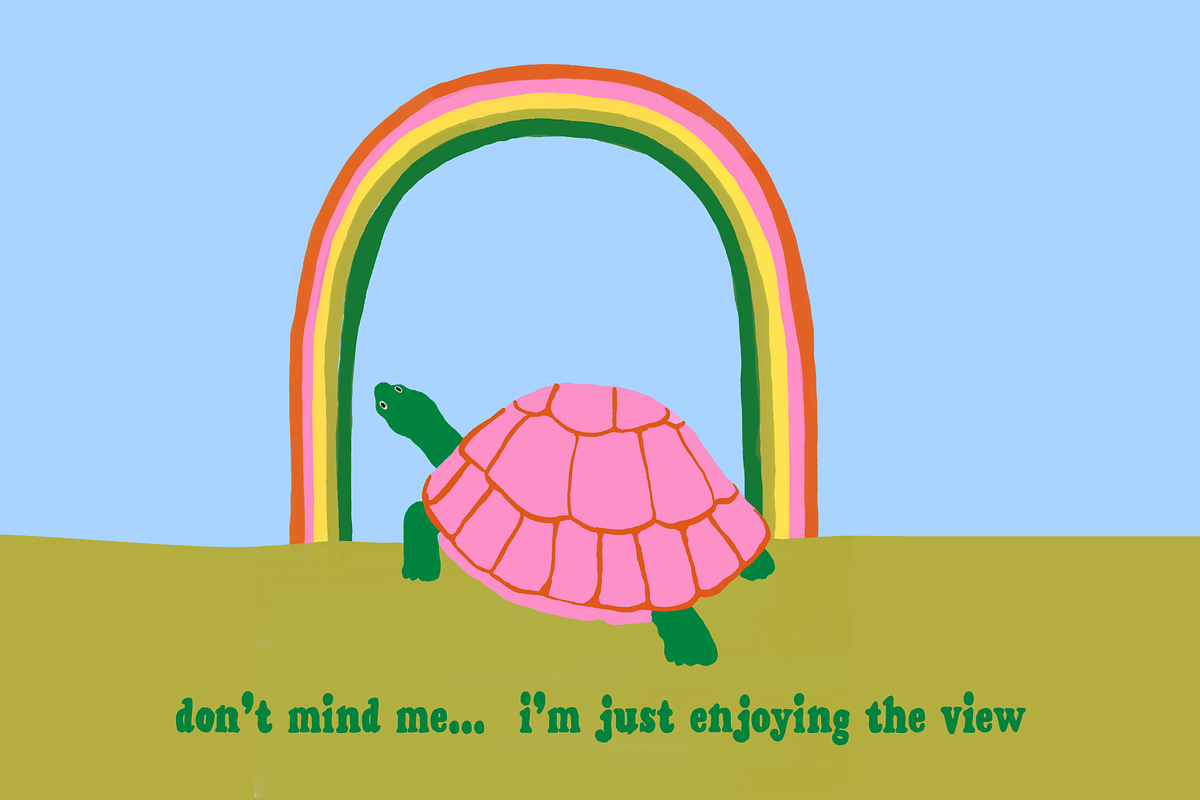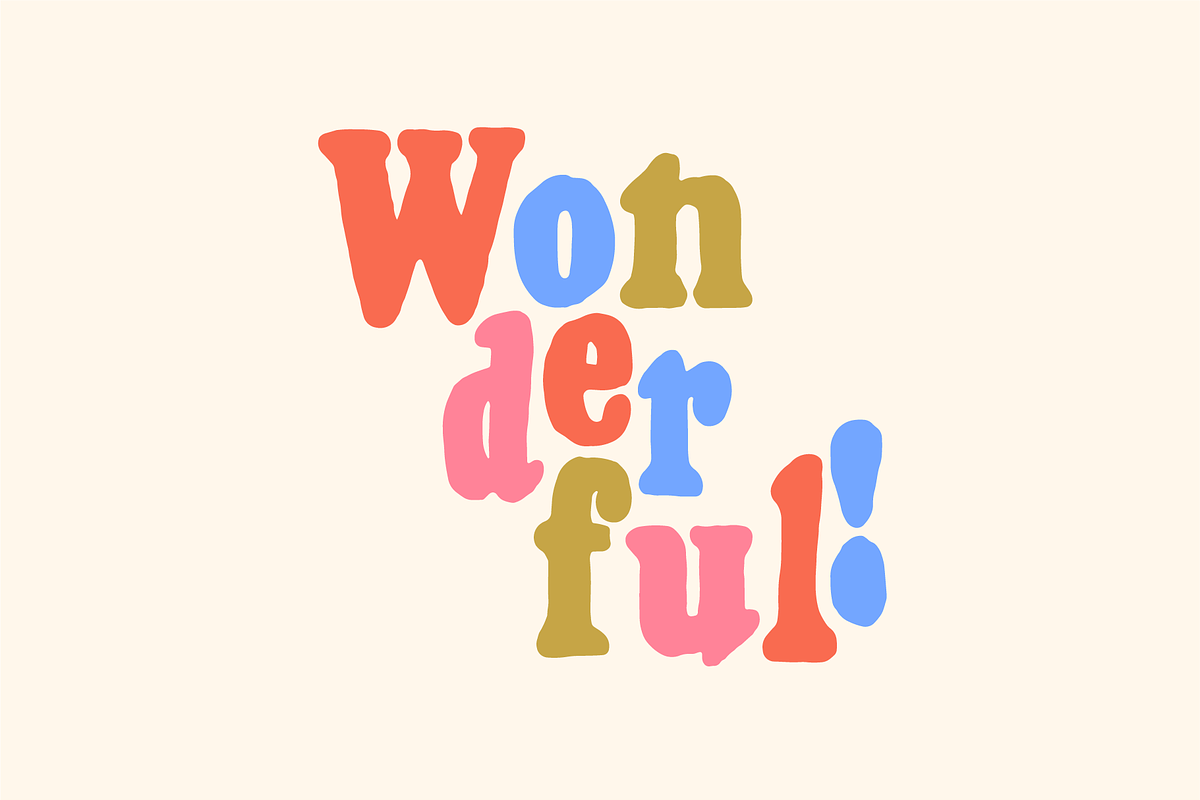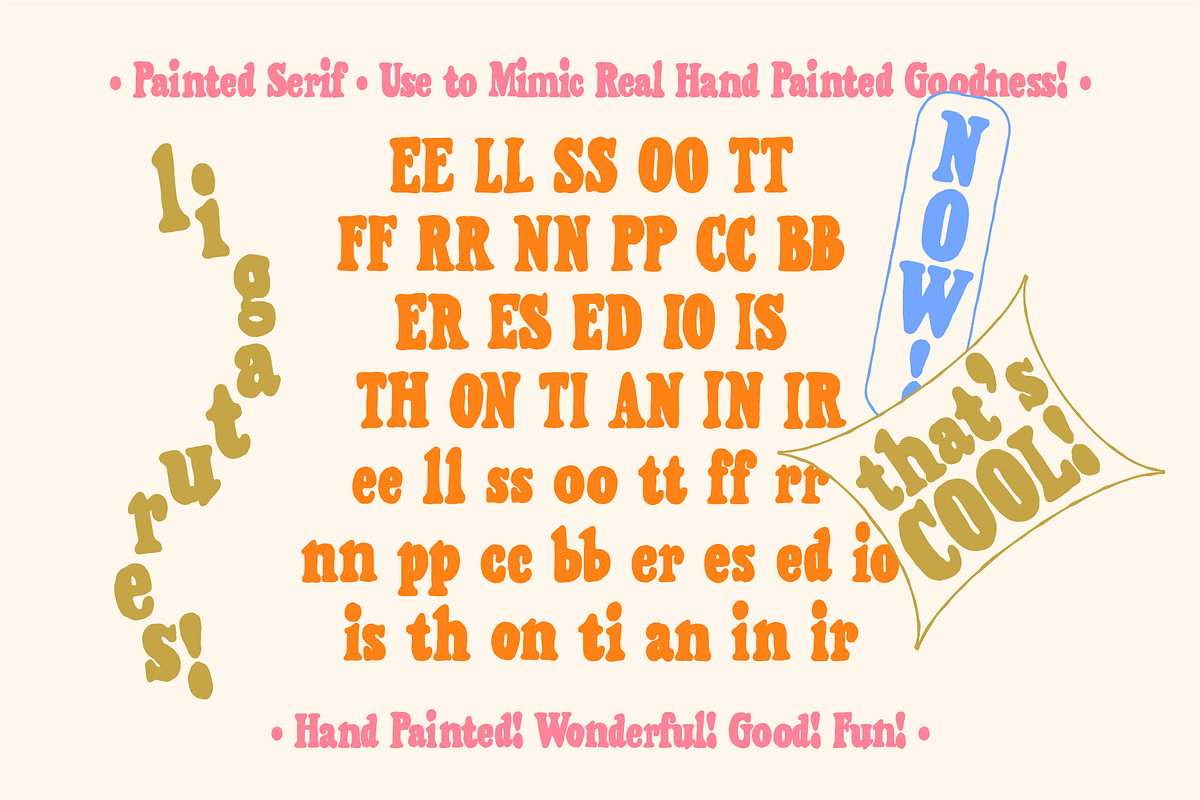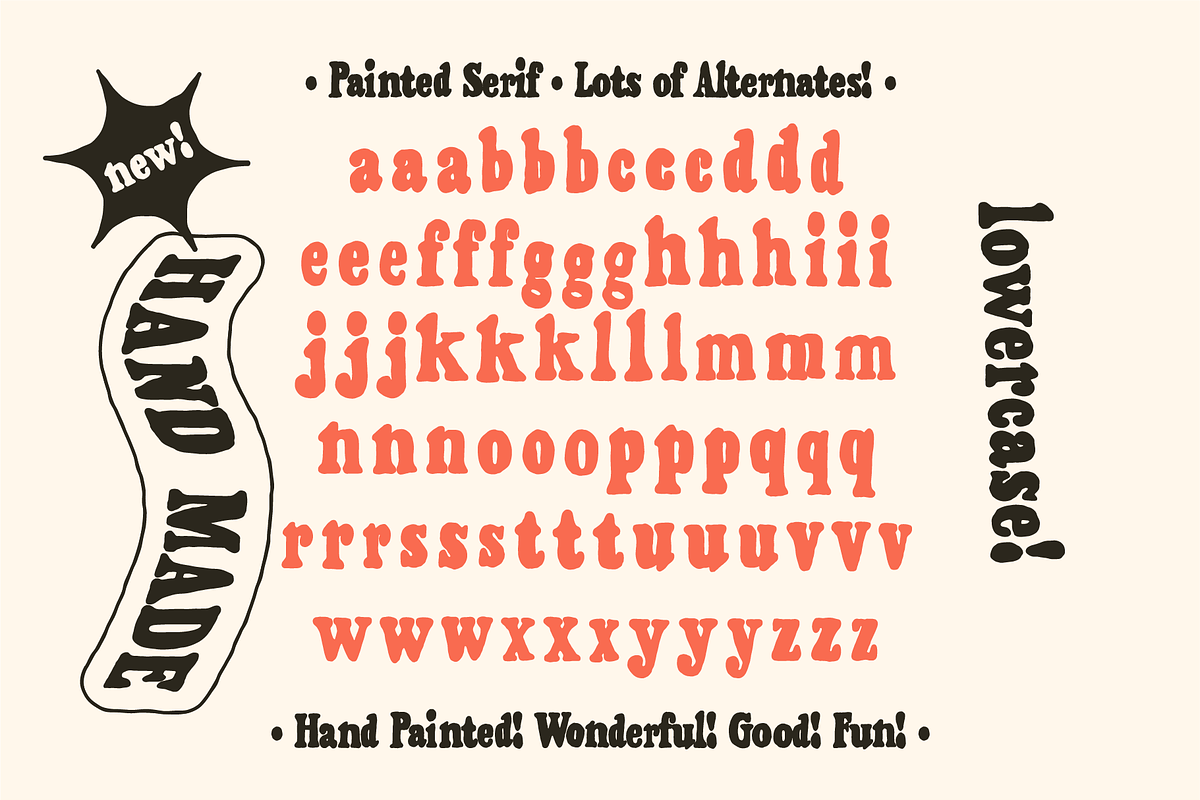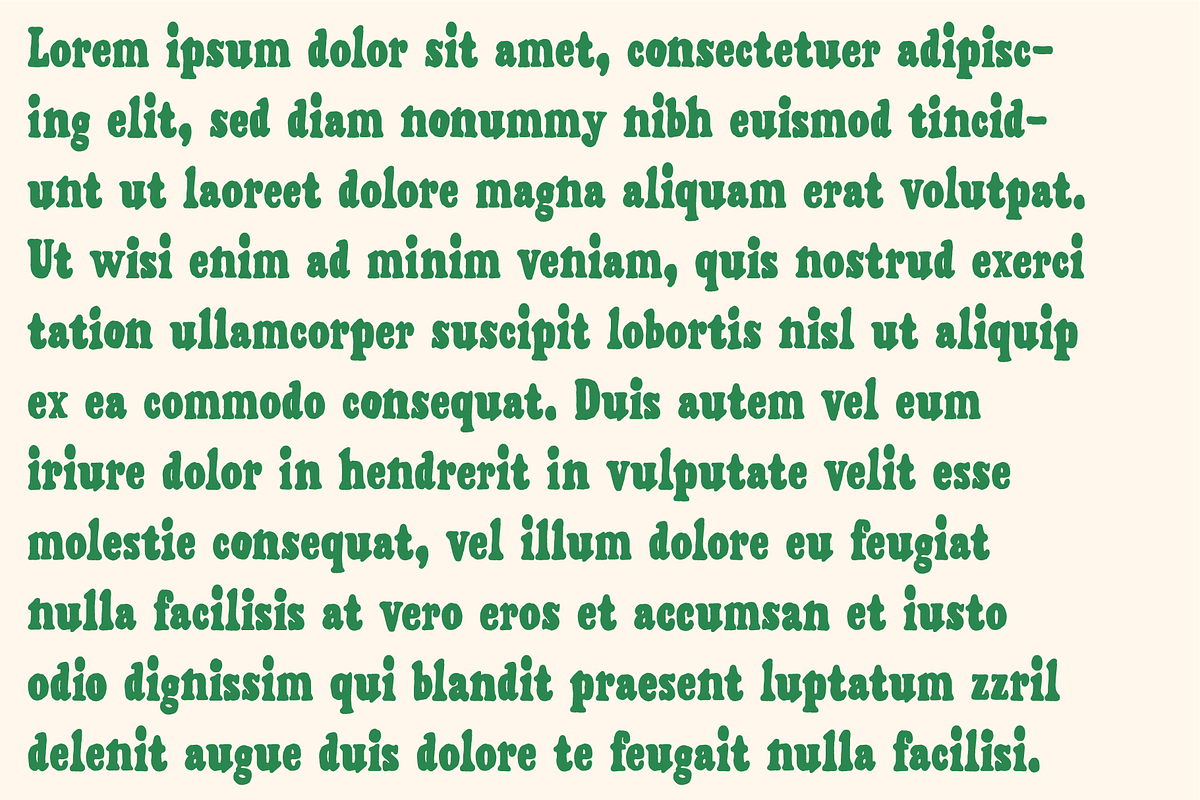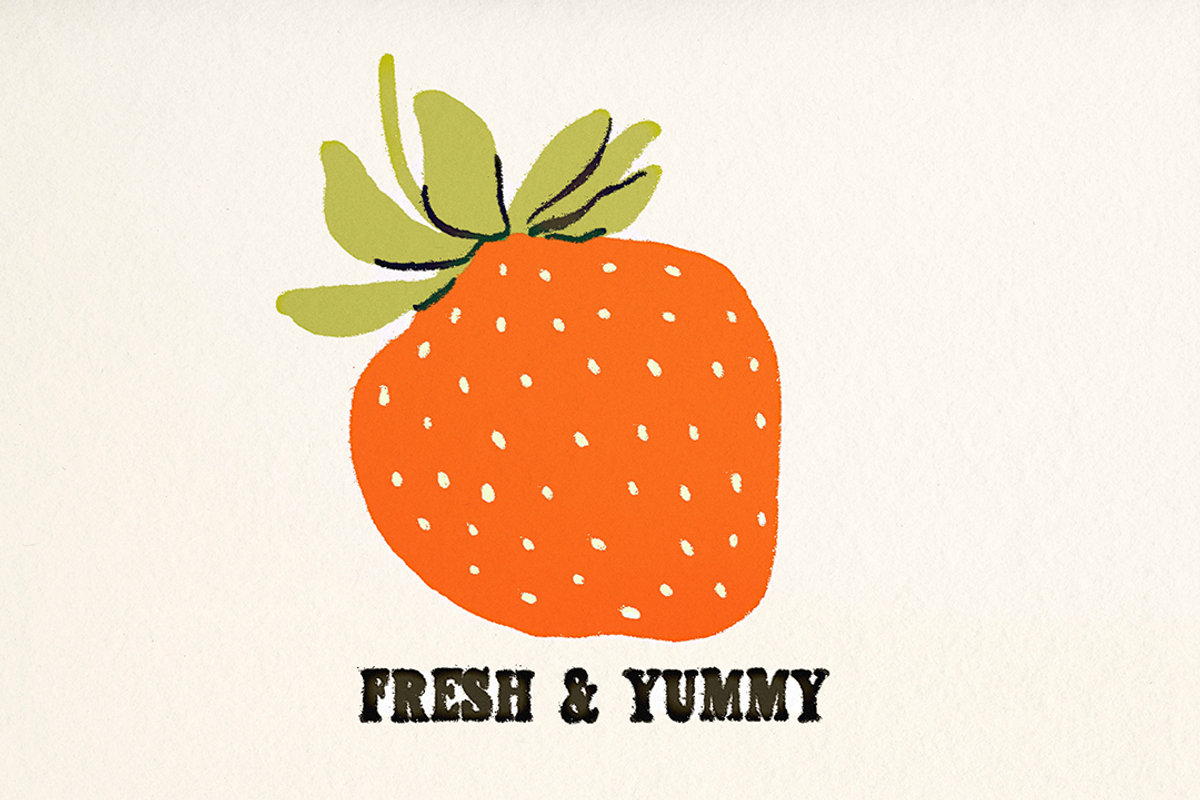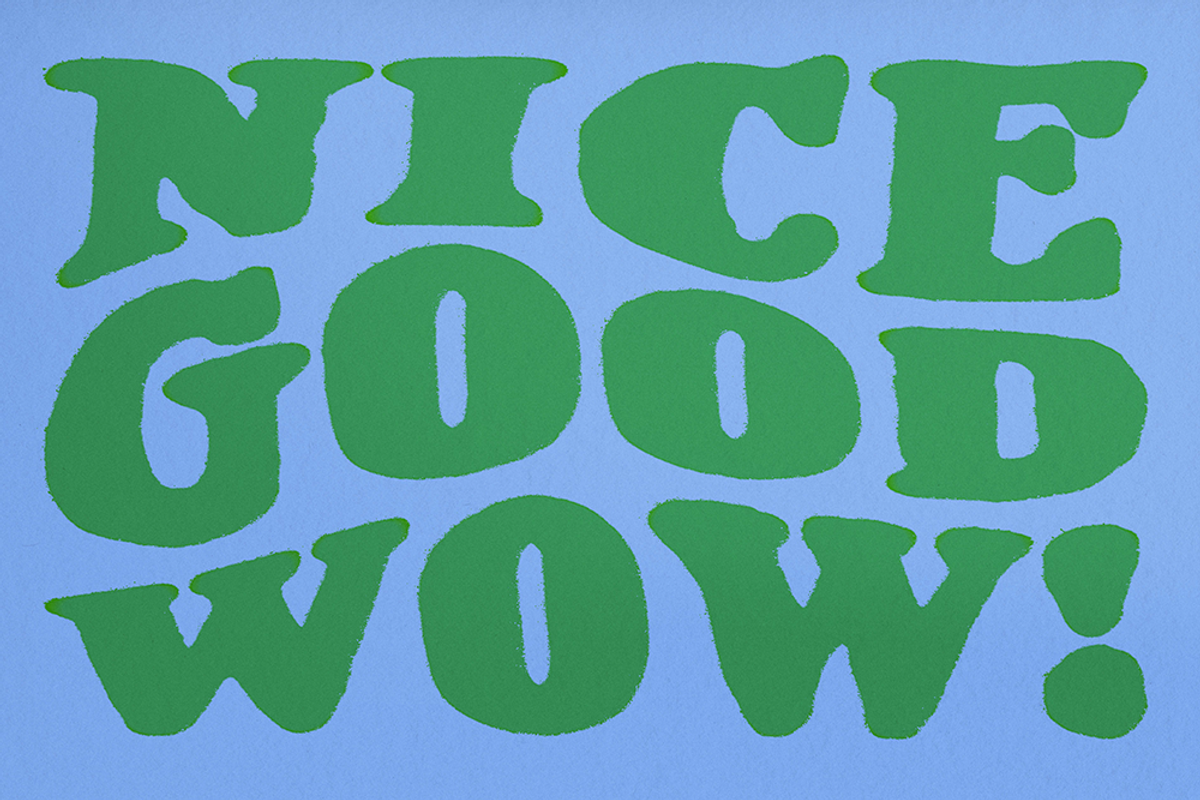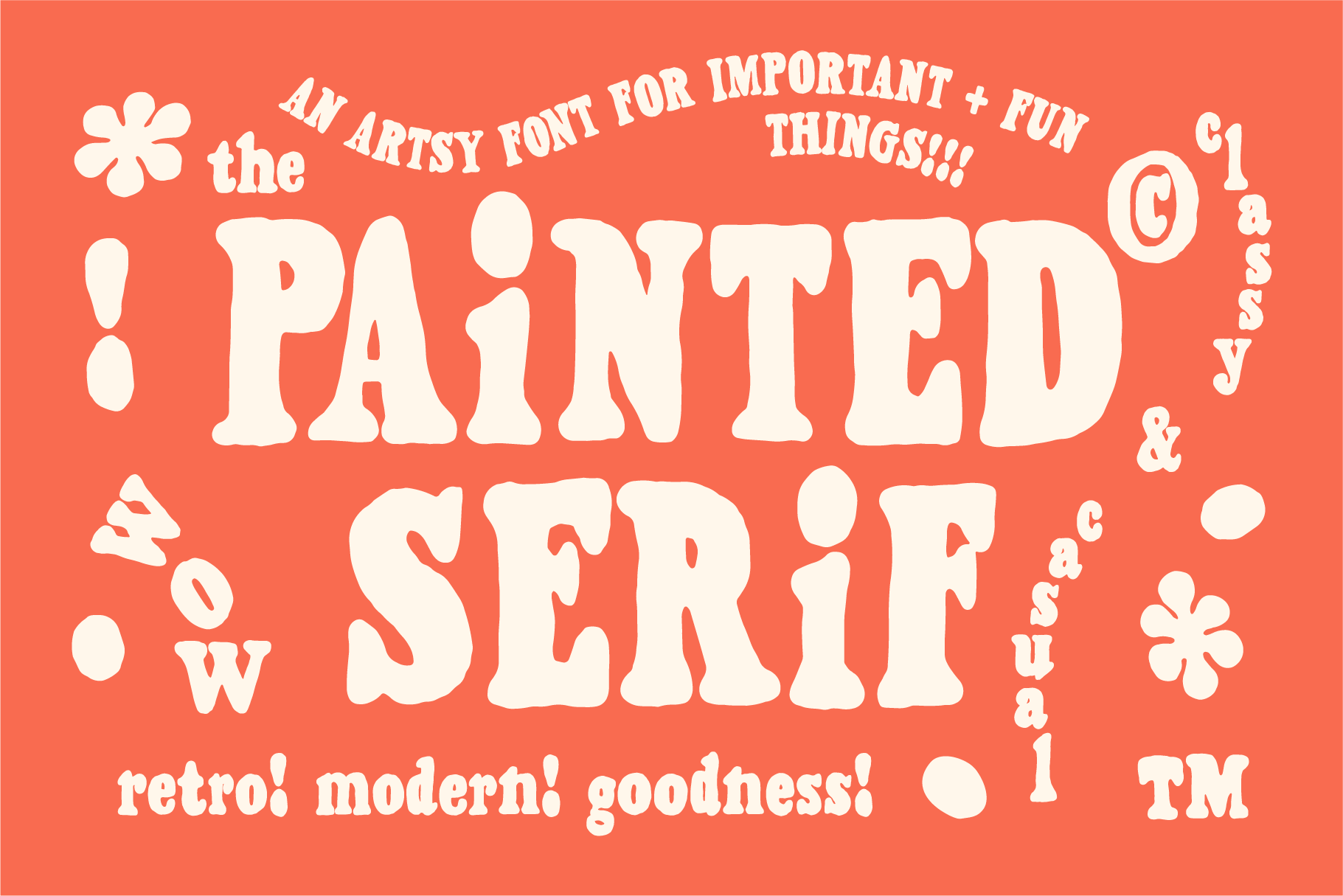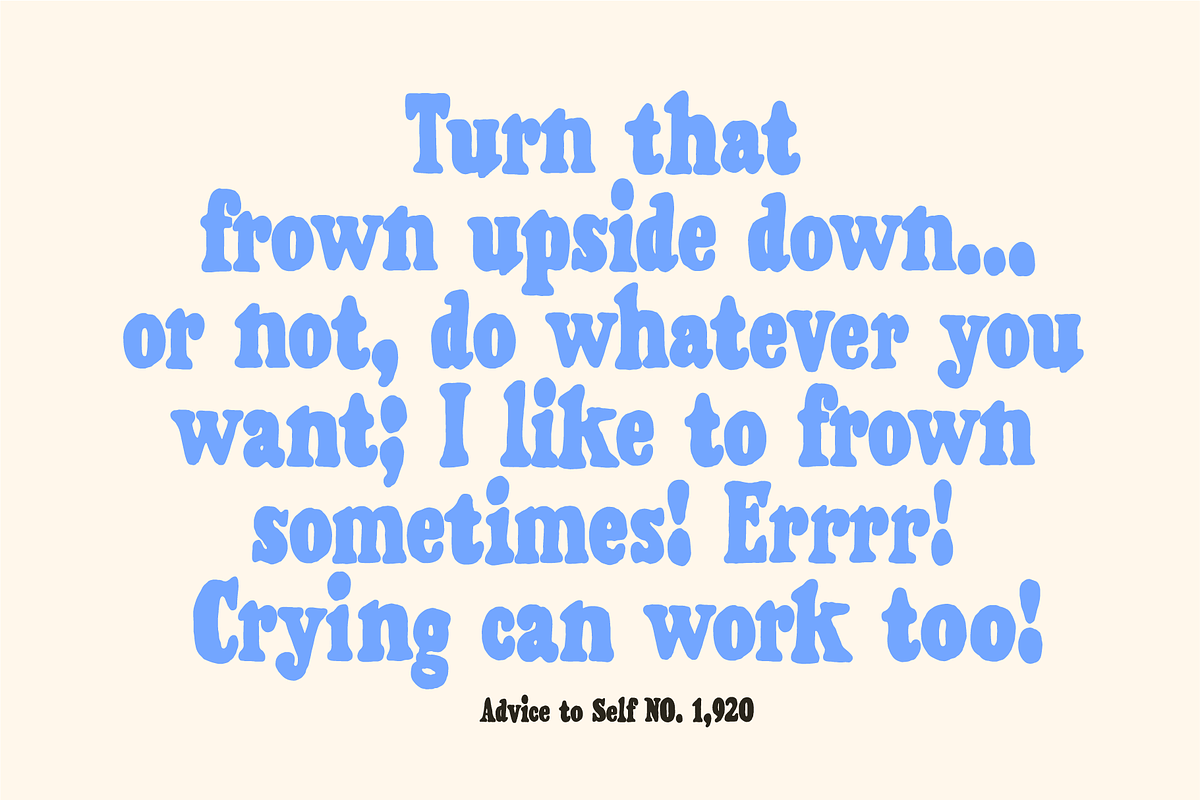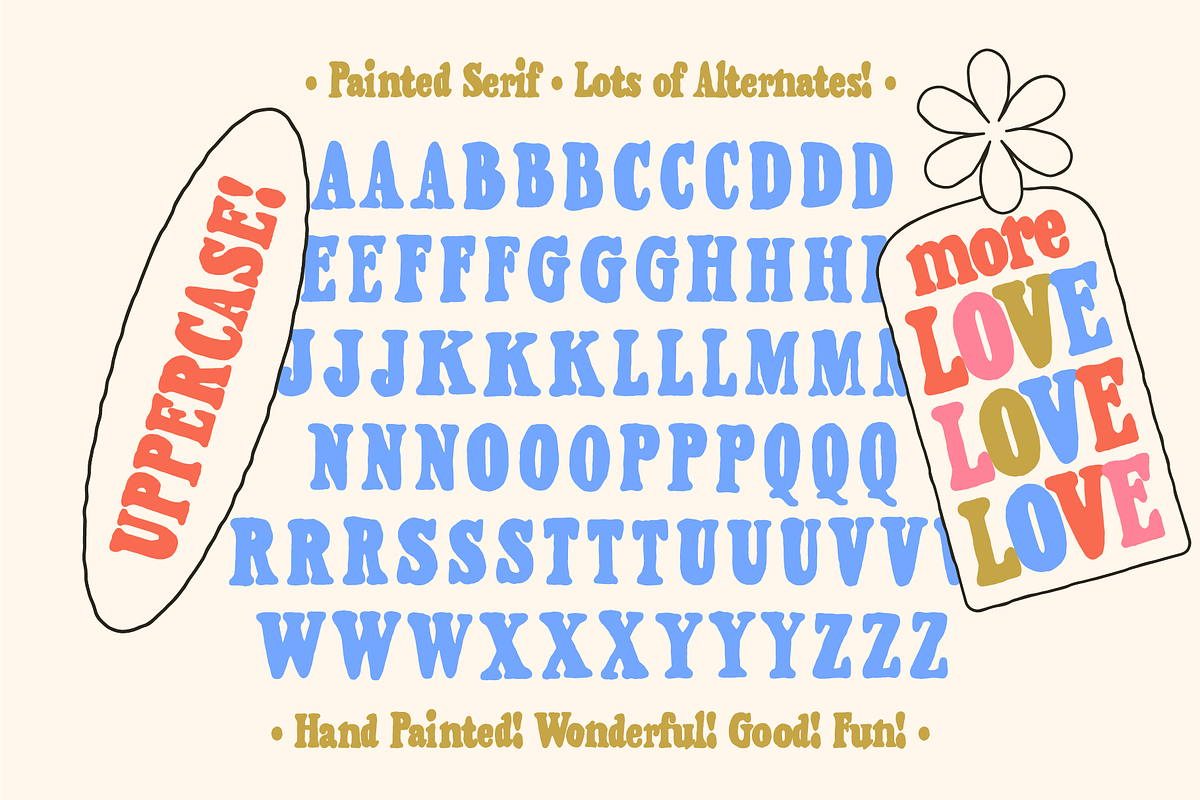
Painted Serif - Hand-lettered Font
WOW! Painted Serif brings all the wonderful hand-painted goodness to a classy but casual font. Feels like a modern and retro mix! Ou la la! Each character is hand painted with imperfections and variations in cap height, ascender height, x-height, baseline, spacing, weight, and contour line quality to get that good n' pretty painted look. Works great in lots of uses!
What's in the font? Uppercase Letters A-Z!!! Lowercase Letters a-z!!! Numbers!!! Symbols!!! Punctuation!!! Multiple Alternate Characters!!! Ligatures!!! (see slides!)